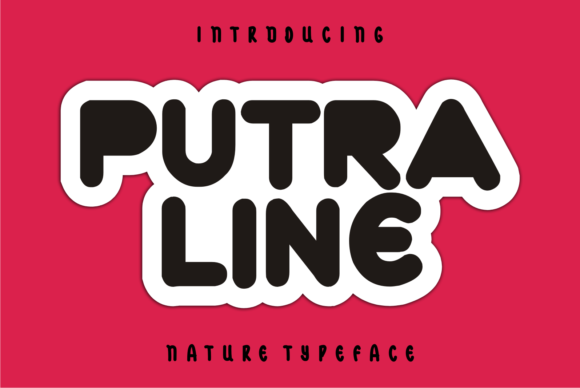
Introducing Putra Line Font: A Typographic Masterpiece for Creative Expression
Journey into the realm of captivating typography with Putra Line Font, a display font that exudes coolness and trendy vibes. Designed by the ingenious minds at futuristypestudio, Putra Line is not just a font; it's an artistic statement that elevates your creative vision to new heights.
With Putra Line Font, you hold the key to unlocking a world of design possibilities. Its bold and distinctive characters command attention, making it the perfect choice for logos, badges, clothing, posters, and any project demanding a standout presence. Unleash your creativity and watch your ideas transform into visually stunning realities.
Step into a world where typography meets emotion. Putra Line Font's carefully crafted letterforms dance across your screen, evoking a sense of excitement and energy. Its unique lines and curves create a dynamic rhythm that captures the eye, leaving a lasting impression on your audience.
Experience the versatility of Putra Line Font as it effortlessly adapts to various design concepts. Whether you're crafting a bold logo for your brand, designing eye-catching badges for your team, or creating trendy clothing lines that speak to your customers' individuality, Putra Line Font seamlessly integrates, amplifying your message with its distinct personality.
Let Putra Line Font be your creative companion, guiding you through a journey of visual expression. Its user-friendly nature makes it accessible to designers of all skill levels, empowering you to transform your ideas into tangible works of art.
Embrace the Putra Line Font experience today and unlock a new chapter of creative freedom. Let your imagination soar as you create designs that resonate with your audience, leaving a lasting impact that speaks volumes about your unique style.